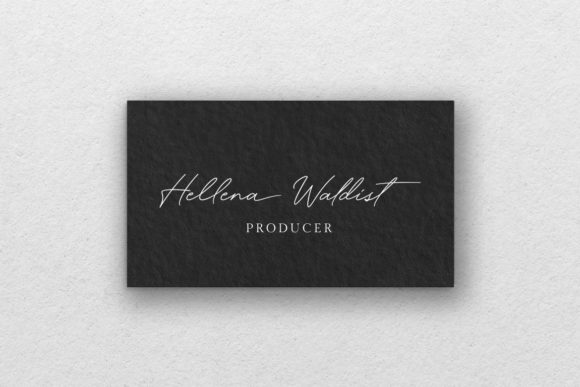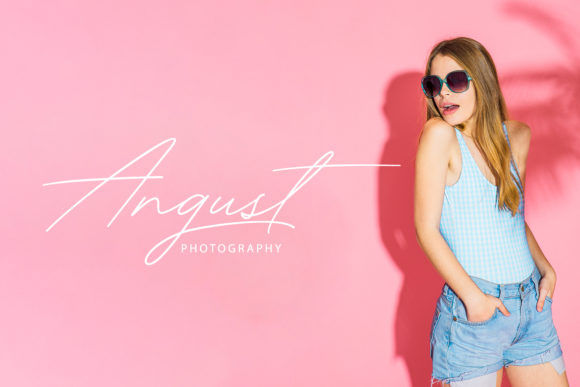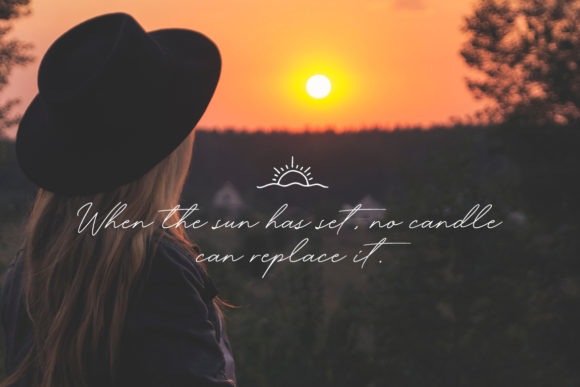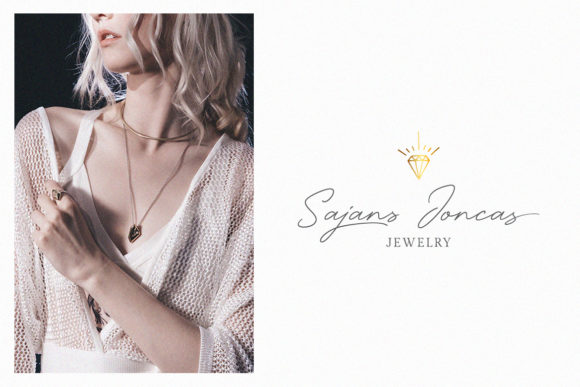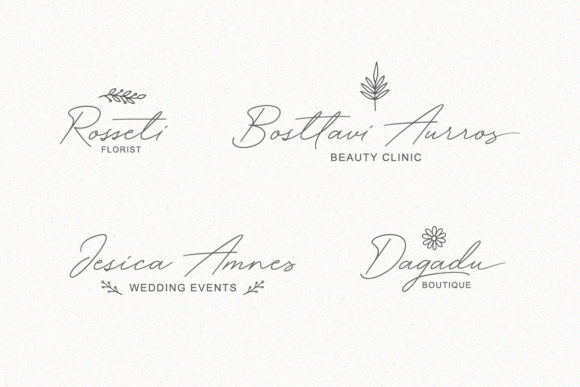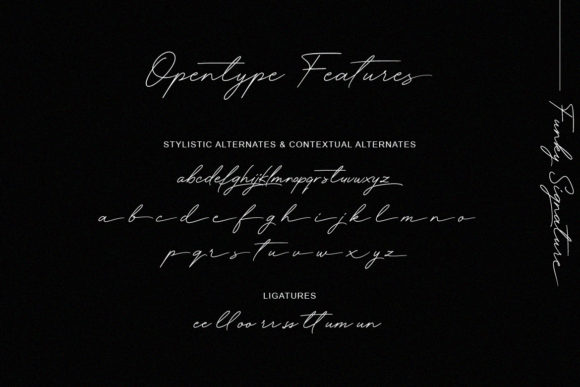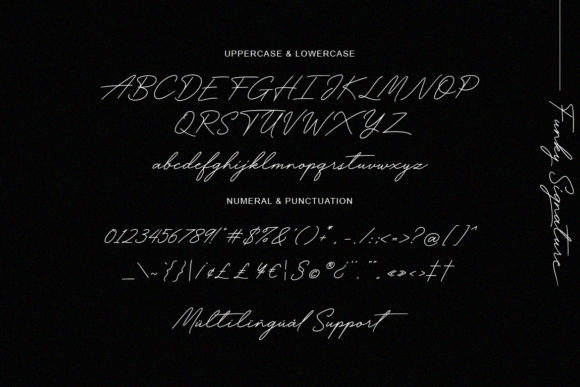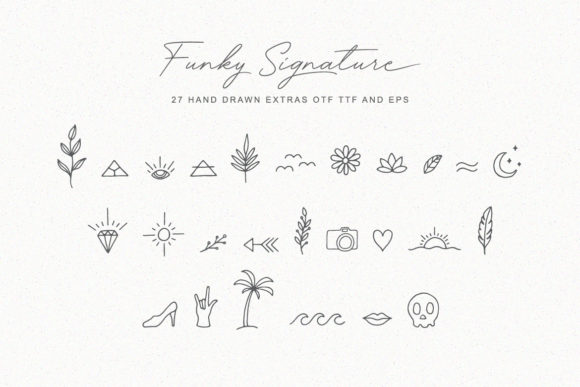
Funky Signature Font
About Funky Signature Font
Funky Signature is a handwritten signature script with a natural flow with classic 80’s style. Perfect for adding a unique touch to your design project!